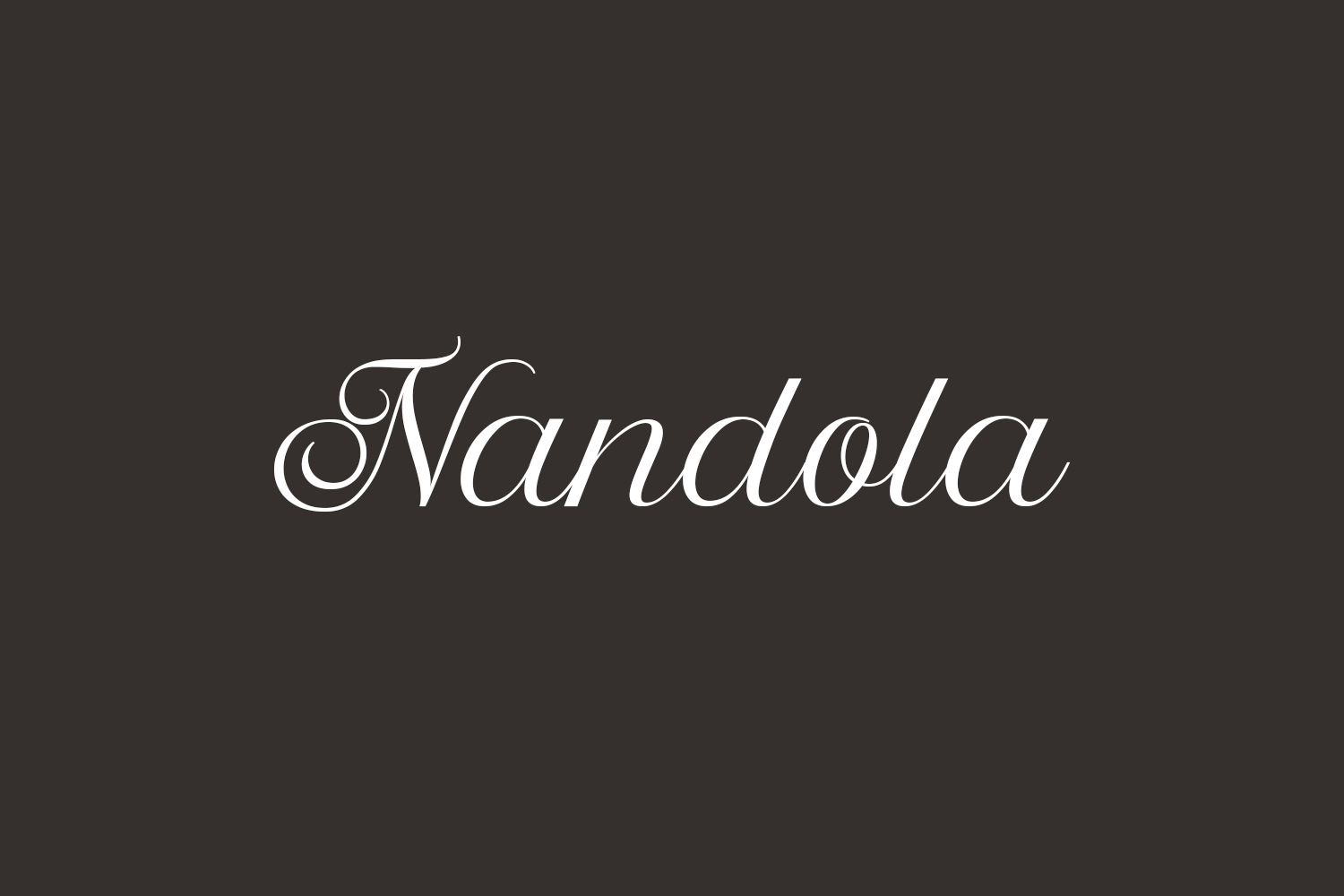
Nandola Free Font is a sophisticated script typeface with a refined and beautiful aesthetic. Its modern and elegant appearance makes it suitable for a range of design applications, such as logos, branding materials, invitations, stationery, wedding designs, social media posts, and many more!
Designed by Alit Design